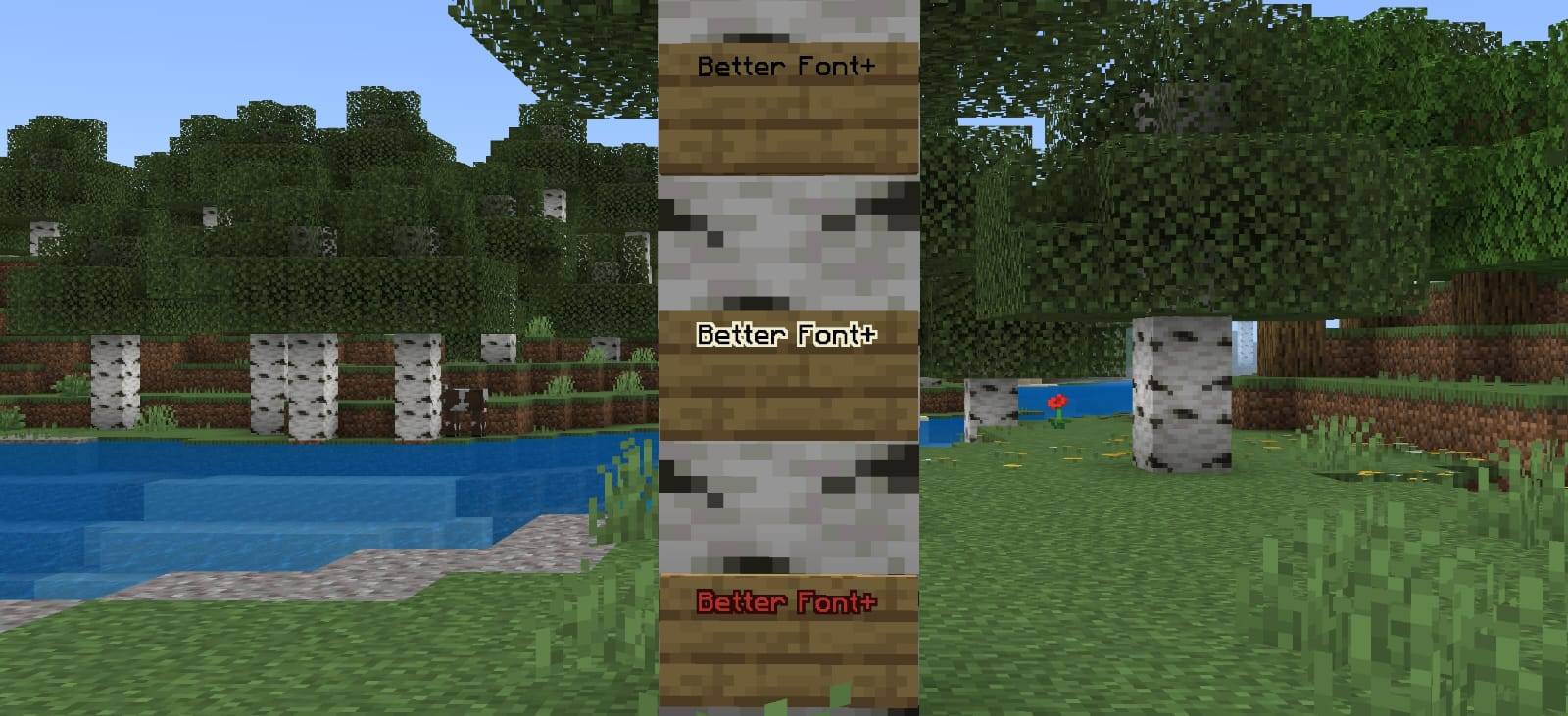
Better Font+
Better Font+ is a smooth and stylish font texture pack that upgrades Minecraft’s default text with a cleaner, sharper, and more modern look
Better Font+ is designed to enhance your Minecraft text experience with cleaner, sharper, and more aesthetic fonts. The default Minecraft font can sometimes feel pixelated or hard to read, especially on mobile screens, so Better Font+ makes everything easier to see without changing the game’s core style.
✨ Features
Clean and modern font style
Improved readability on small/mobile screens
Better visibility for signs and text
Supports colored text (white, black, red, etc.)
PvP-friendly UI appearance
Lightweight and performance-friendly